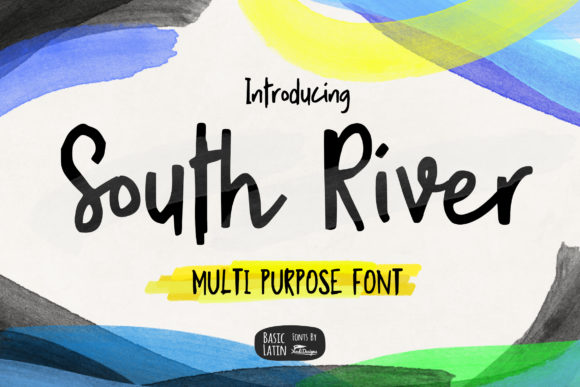
Prepare yourself for the captivating embrace of South River, an enchanting script font that will infuse your creative endeavors with an irresistible charm and a touch of playfulness. This exquisite creation from the skilled hands of YandiDesigns is a symphony of strokes that flow with grace and dance with personality.
Imagine your words taking on a new life, imbued with the charm of South River. Whether you're crafting an alluring logo that will leave an unforgettable mark or penning heartfelt quotes that resonate deep within the soul, this font empowers your expressions with an enchanting allure.
Envision your wedding invitations adorned with South River's elegant swirls, transforming them into timeless keepsakes that capture the joy and romance of your special day. Its versatility extends to album covers, business cards, and magazine covers, where it will add a touch of sophistication and style.
Picture your business cards adorned with South River's distinctive presence, commanding attention and leaving a lasting impression on potential clients. Its playful nature will add a touch of whimsy to clothing designs, making them irresistible to those who appreciate the unique and captivating.
South River is more than just a font; it's an invitation to let your imagination soar and your creativity flourish. Embrace its magic, and watch your designs blossom into captivating expressions that will steal hearts and make a lasting impact.